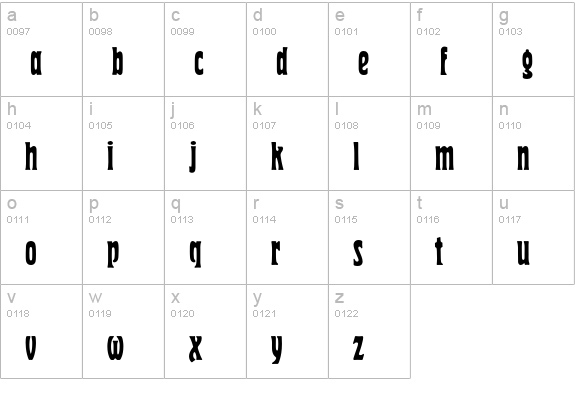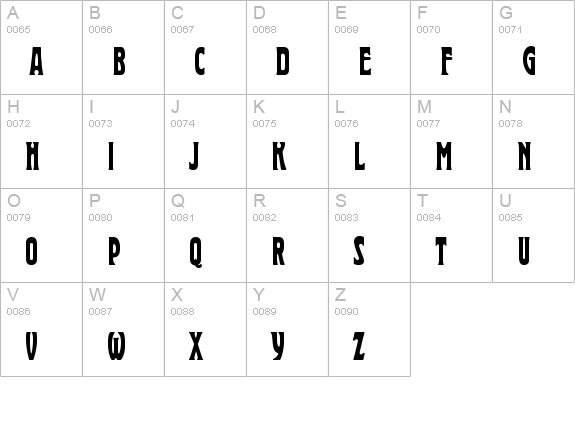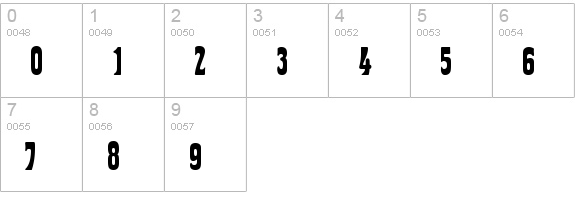
Herold Reklameschrift Font Details
Herold Reklameschrift is a classic and elegant font that exudes sophistication and timelessness. With its clean lines and graceful curves, this font is perfect for adding a touch of refinement to any design project. Whether you're creating a logo, a poster, or a website, Herold Reklameschrift will elevate your work to the next level. What's even better is that Herold Reklameschrift is available for free download at FontsMarket.com. This means that you can access this beautiful font without having to worry about any extra costs. So go ahead and enhance your designs with the elegance of Herold Reklameschrift today!